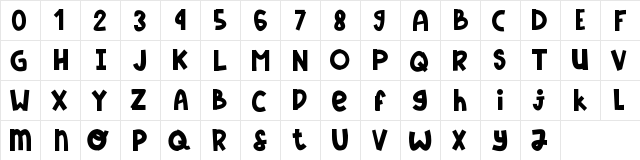
Dark Sky Regular
Design Context for Dark Sky Typeface
Dark Sky is a composed and adaptable typeface that performs quietly and consistently across a wide range of design contexts.